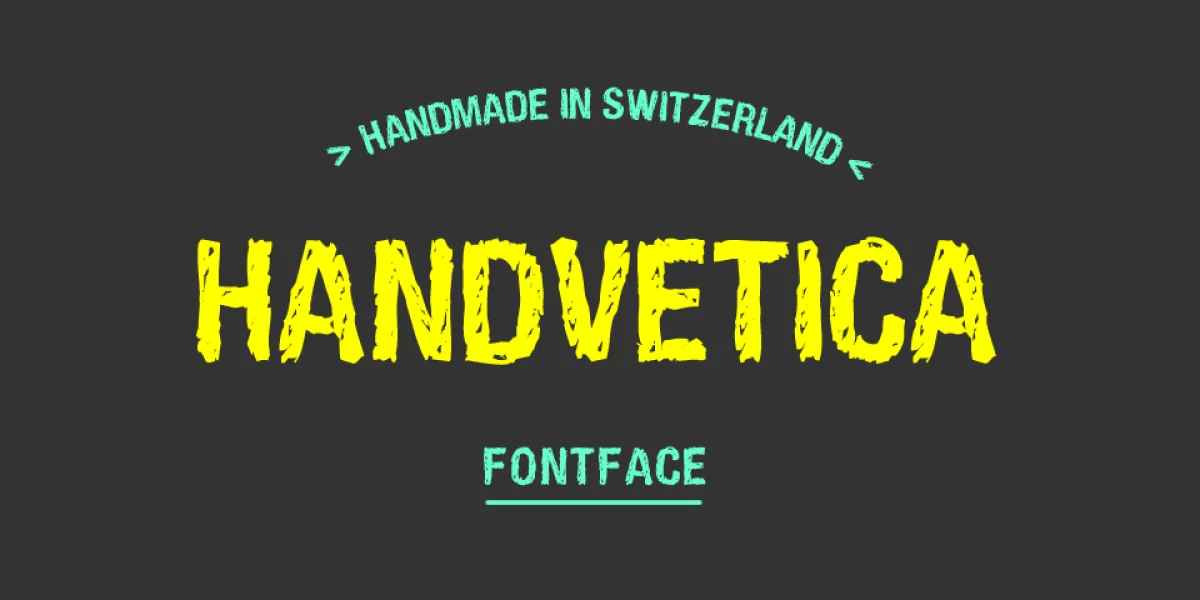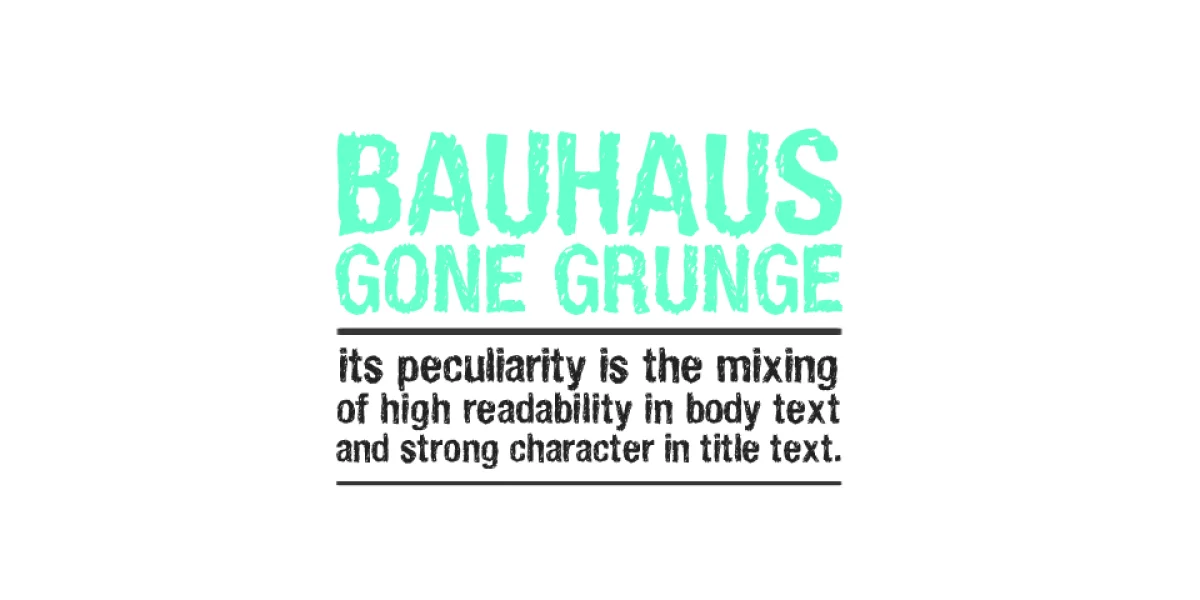
Handvetica is a manual re-drawing of an existing font, with a grunge sensibility. Its peculiarity is the mixing of high readability in body text and strong character in title text.